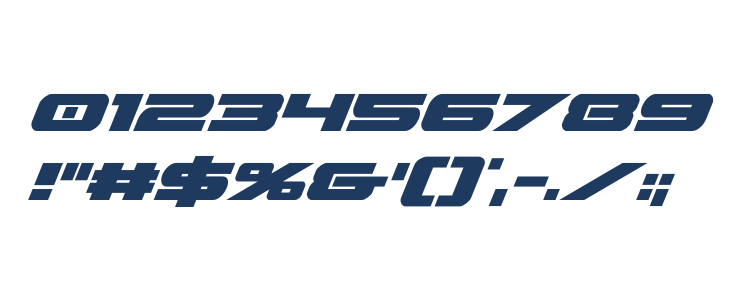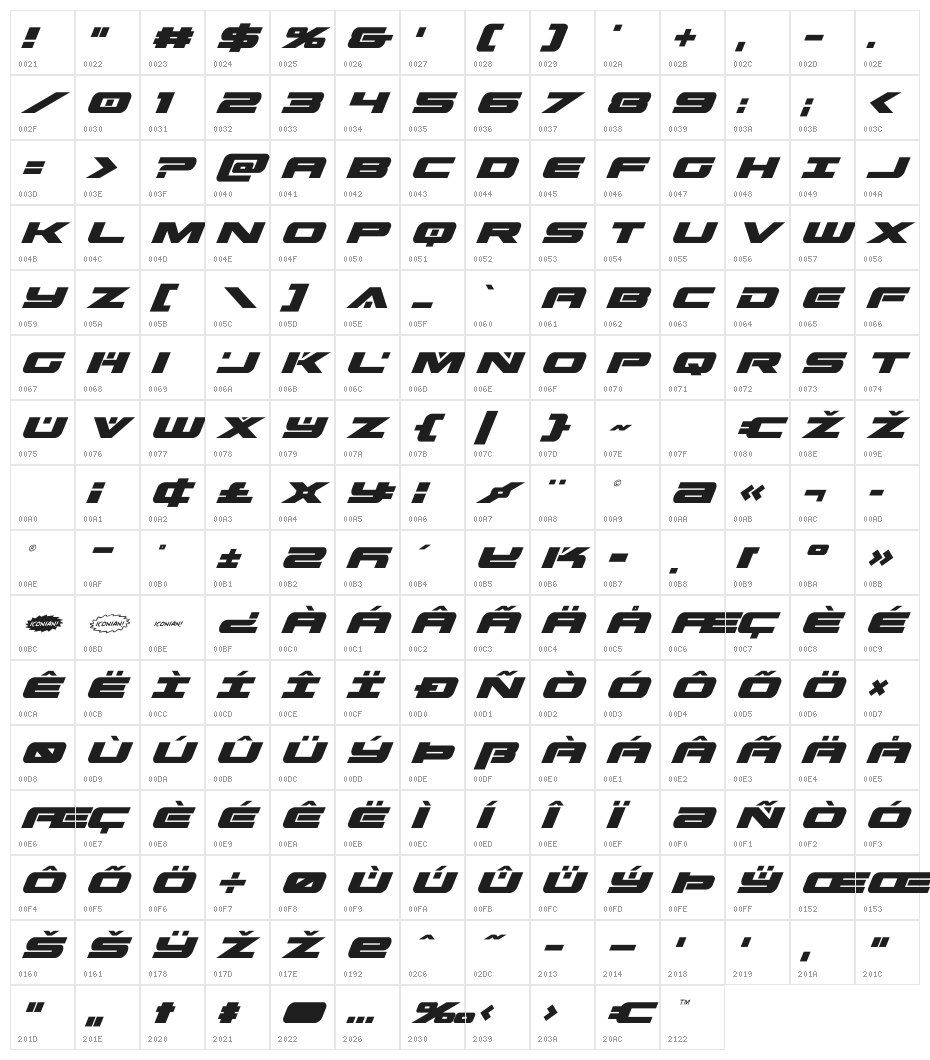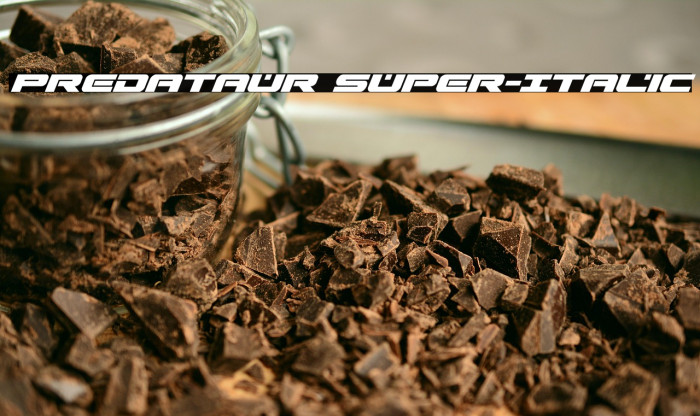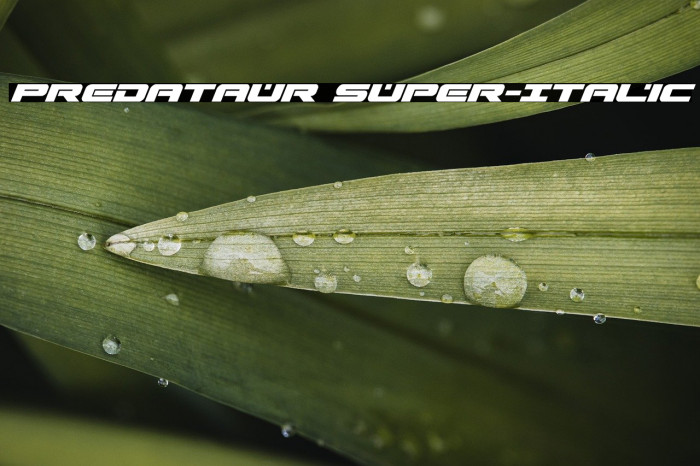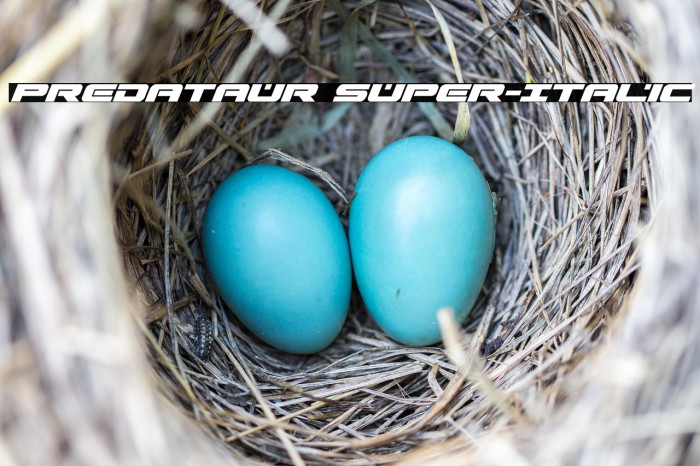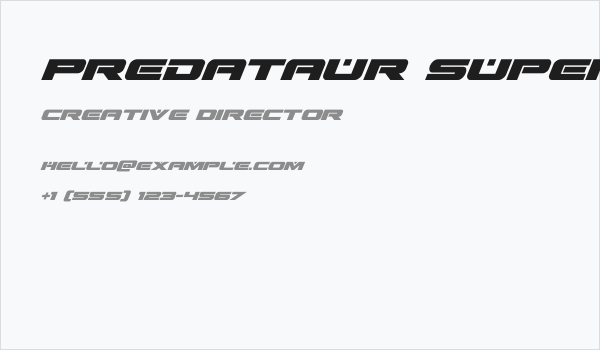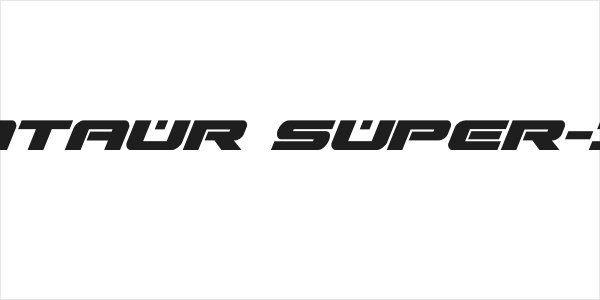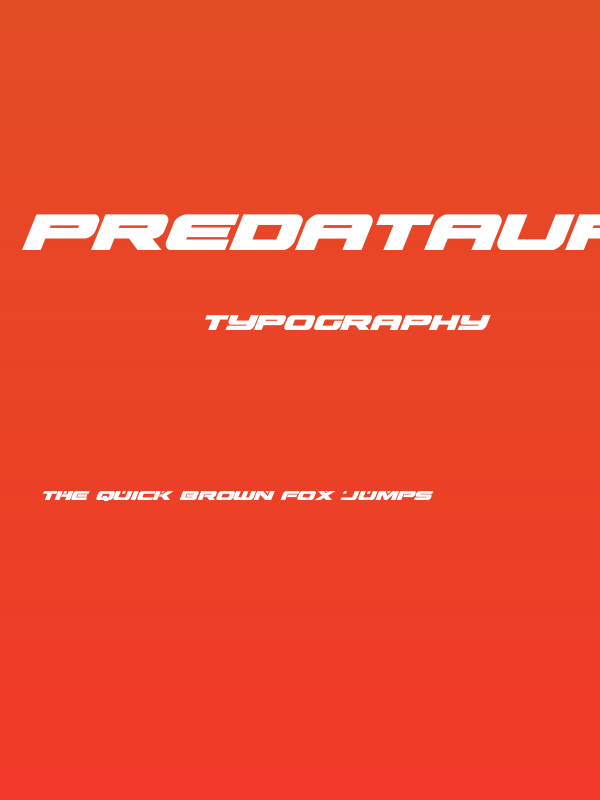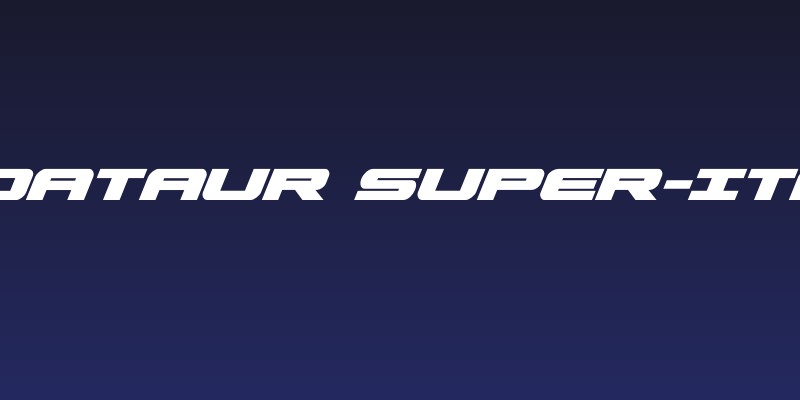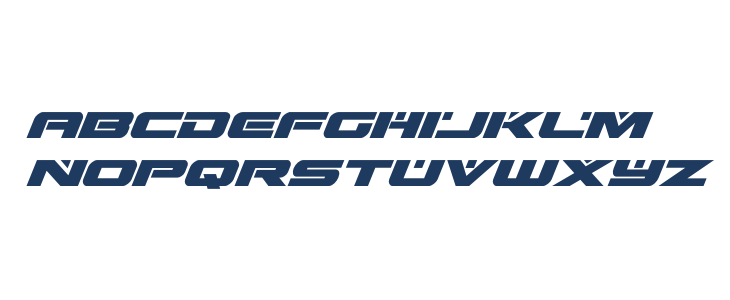
Predataur Super-Italic Font
Predataur Super-Italic Description
This font features a bold and dynamic design with a futuristic flair. The characters are italicized, giving a sense of motion and speed. Each letter is crafted with sharp angles and a slightly condensed form, enhancing its modern and sleek appearance. The uniform stroke width across characters provides a consistent and cohesive look, while the tight character spacing adds to its compact and efficient style. This font is ideal for projects that require a strong, impactful presence, such as branding, sports team logos, or technology-related designs. Its distinctive style makes it suitable for headlines and display purposes, where it can stand out and capture attention.